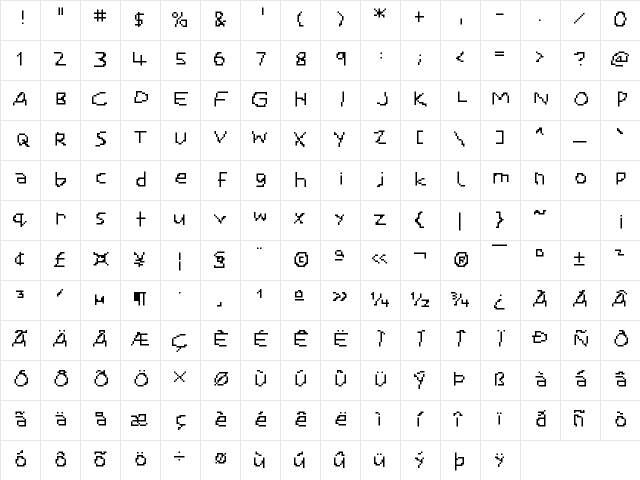
Smalle Regular Font Preview
Smalle Regular
Smalle Regular Font Details
| Foundry | ~ memesbruh03 |
| Designer | ~ memesbruh03 |
Design Context for Smalle Typeface
Smalle takes a measured approach to typography — its balanced proportions and neutral character make it a reliable workhorse for both digital and print work.